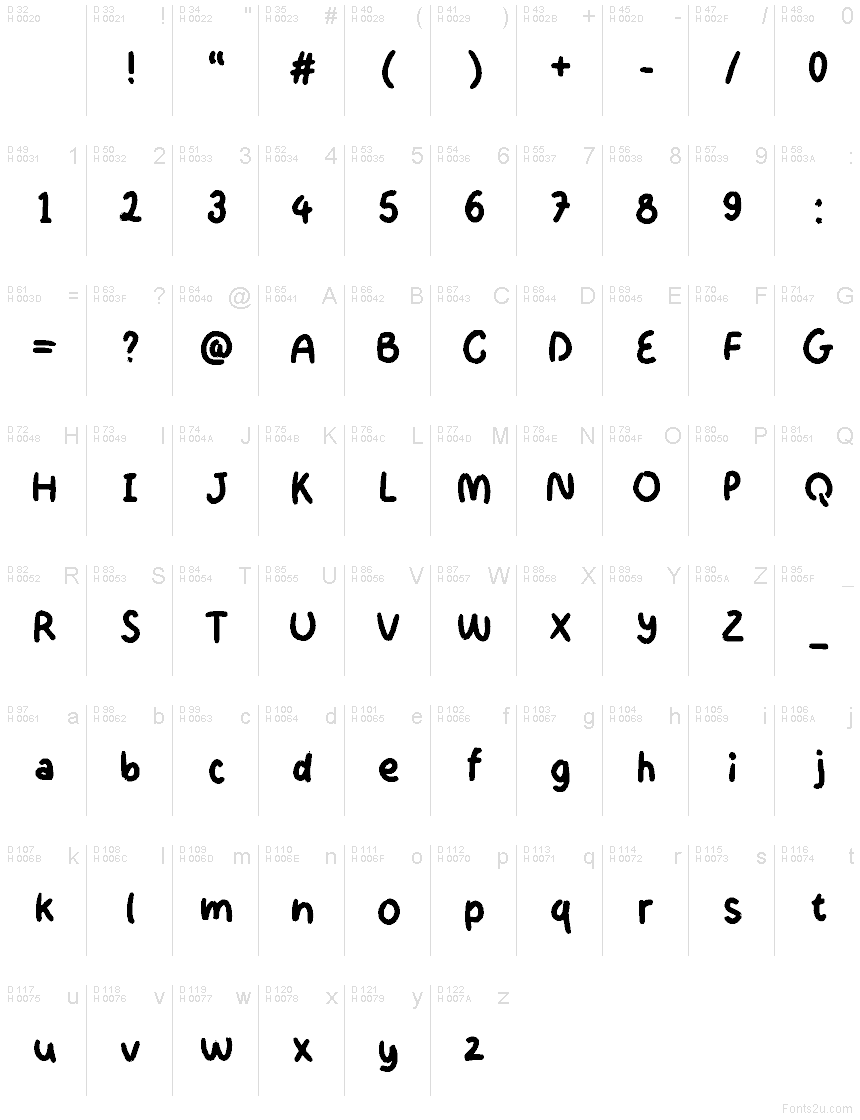
Cute Chalk Regular
Cute Chalk font by Black Hat is a free handwritten typeface that captures the soft, smudgy charm of real chalk on a board. Rounded shapes, slightly wobbly strokes, and inky, filled-in counters give it a friendly, handmade feel that’s playful without being messy, like a neatly drawn classroom doodle. The letters sit close and cozy, creating warm, inviting headlines that feel personal and approachable.
Using Cute Chalk, you can bring that schoolroom nostalgia to kids’ posters, classroom materials, birthday invitations, YouTube thumbnails, café menu boards, and crafty packaging. This free font shines when used big and bold on colorful backgrounds that mimic blackboards or paper. For longer supporting text, pair it with a clean sans serif so Cute Chalk can stay in the spotlight for titles and short phrases.